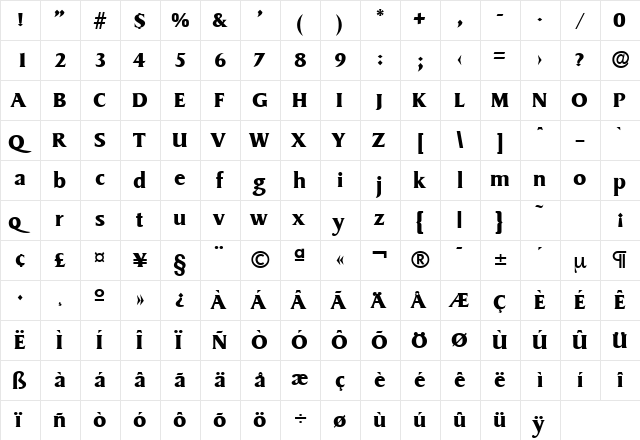
Sydney-Serial DB Bold Font Preview
Sydney-Serial DB Bold
Sydney-Serial DB Bold Font Details
Design Context for Sydney-Serial DB Typeface
Sydney-Serial DB offers clean, dependable letterforms without strong stylistic allegiance, making it a practical choice for designers who need flexibility. Its bold stroke weight gives it real presence on the page.